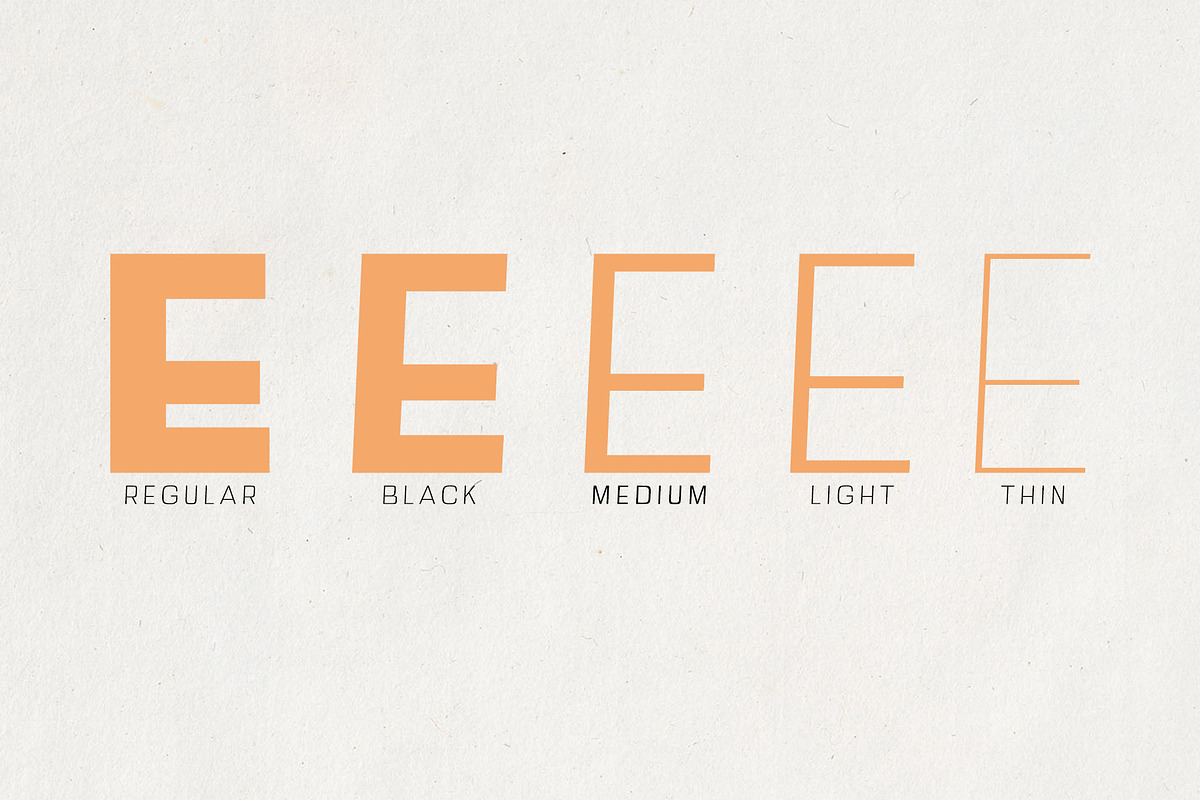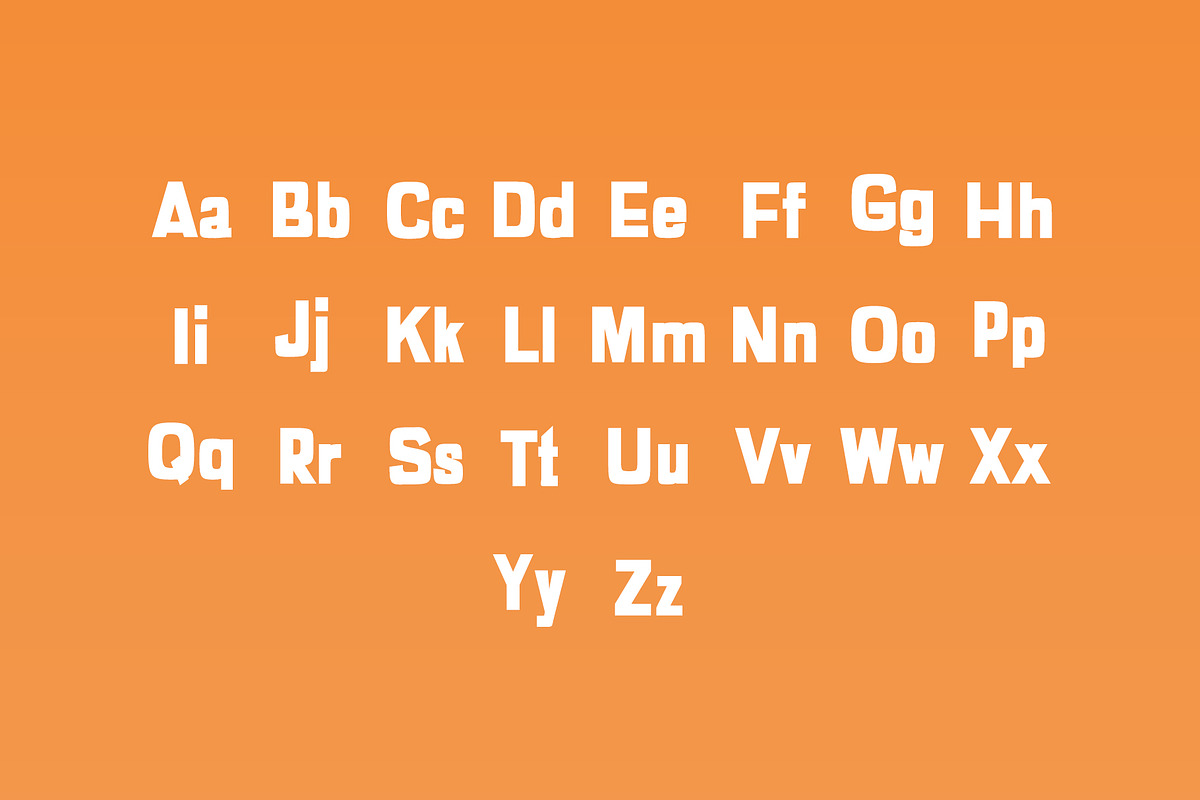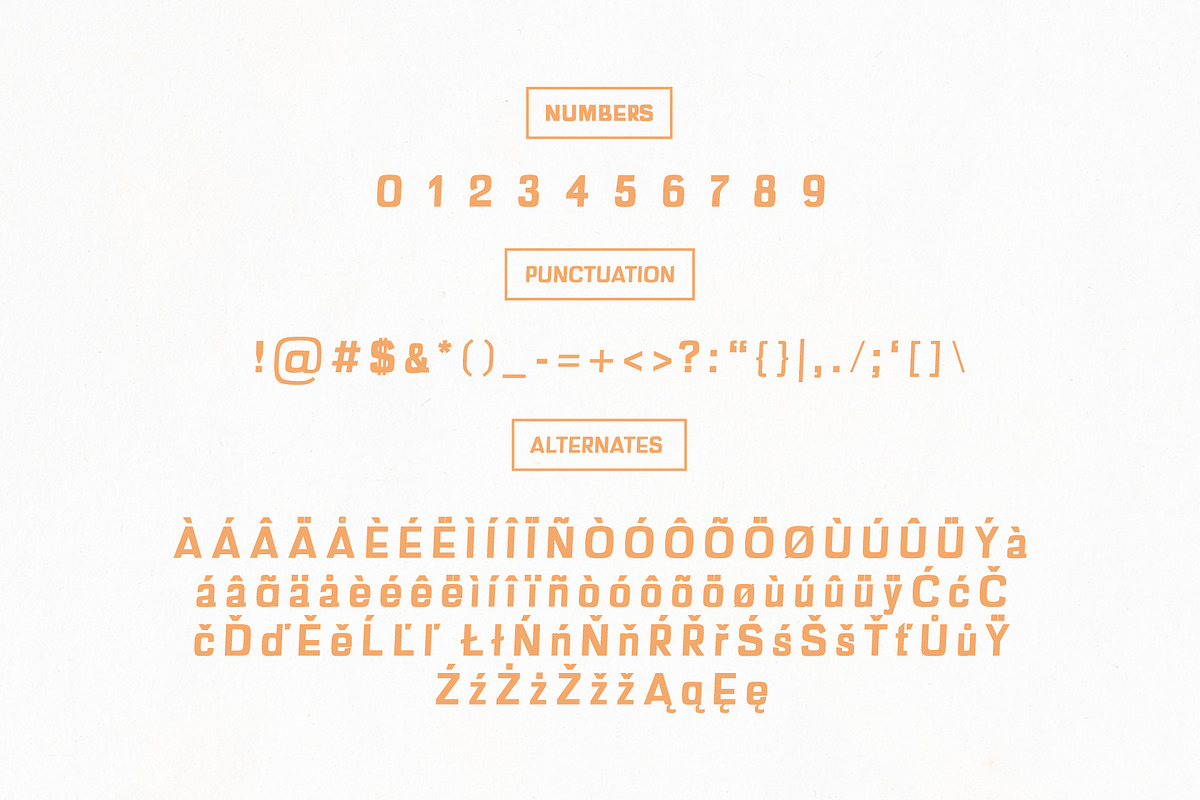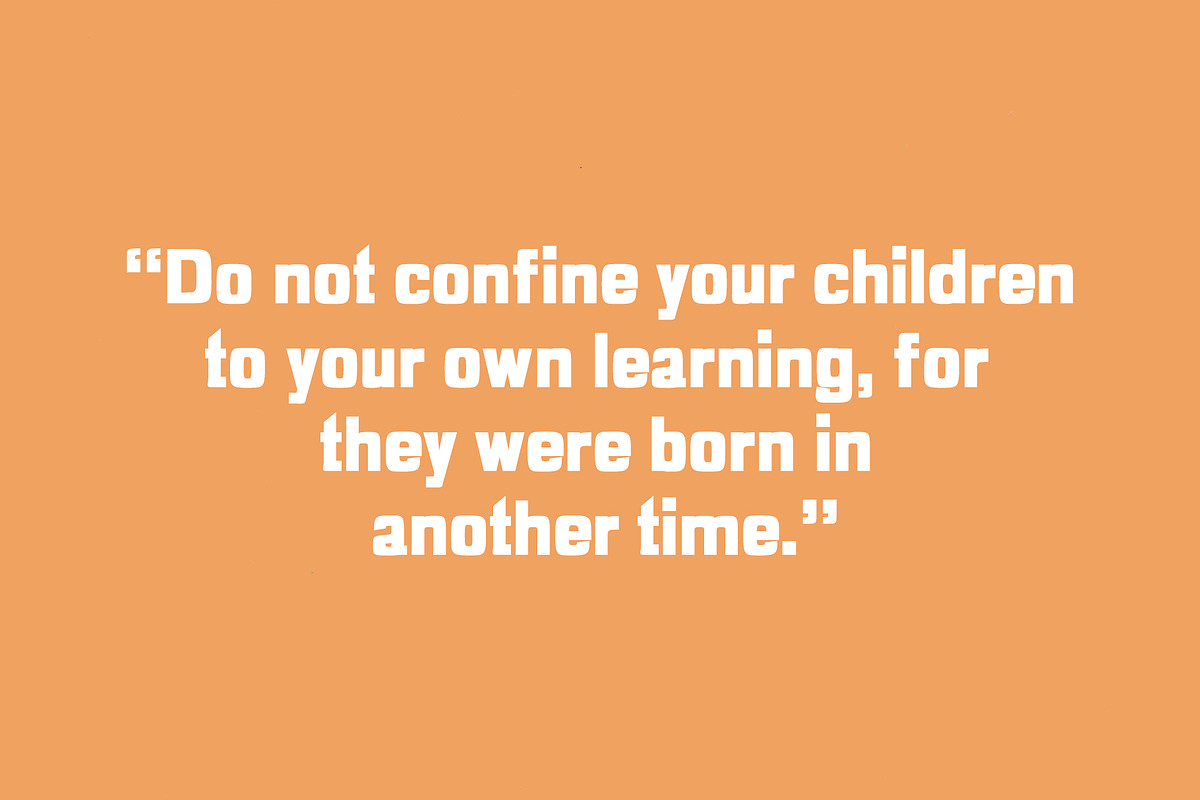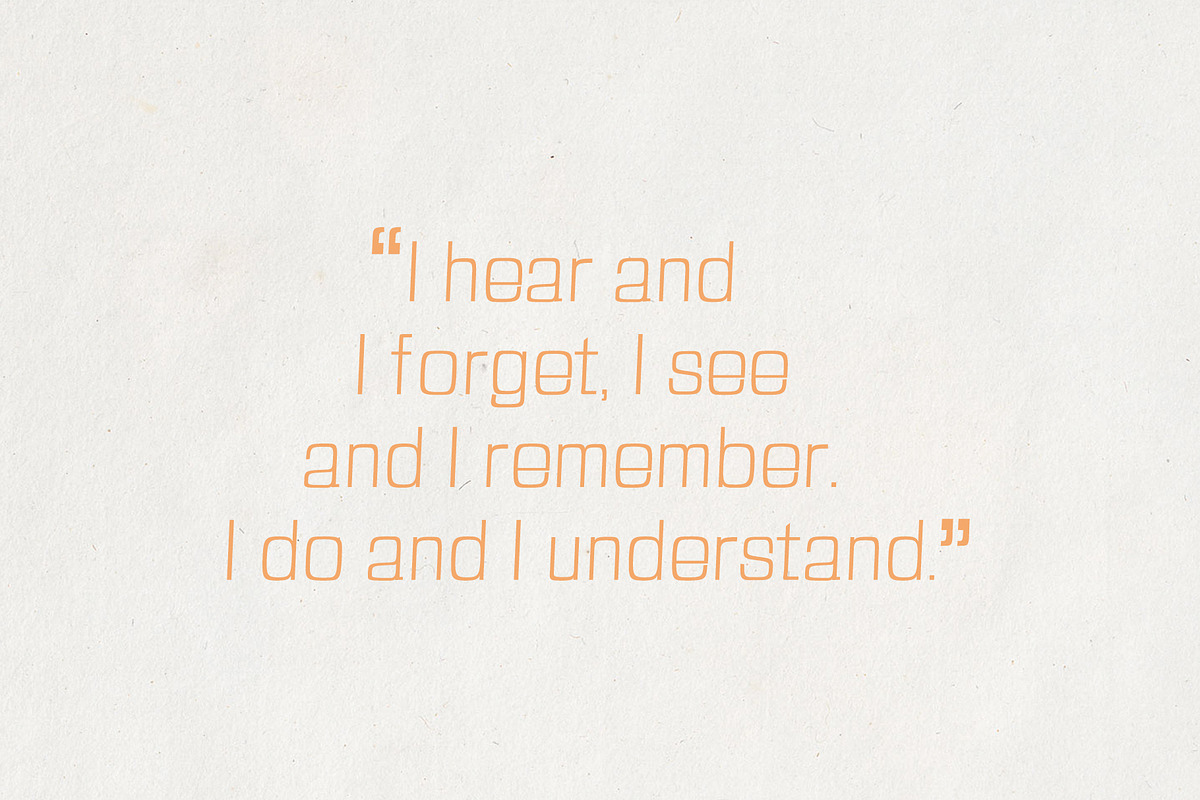
Anzil Sans Serif Font Family
Anzil Sans Serif Font Family by Creativetacos is a font selected for branding, posters, packaging, typography.
- Regular, Thin, Light, Medium and Black Weights
Why Anzil Sans Serif Font Family is worth a look
Anzil Sans Serif Font Family by Creativetacos fits naturally into Branding, posters, packaging, typography.